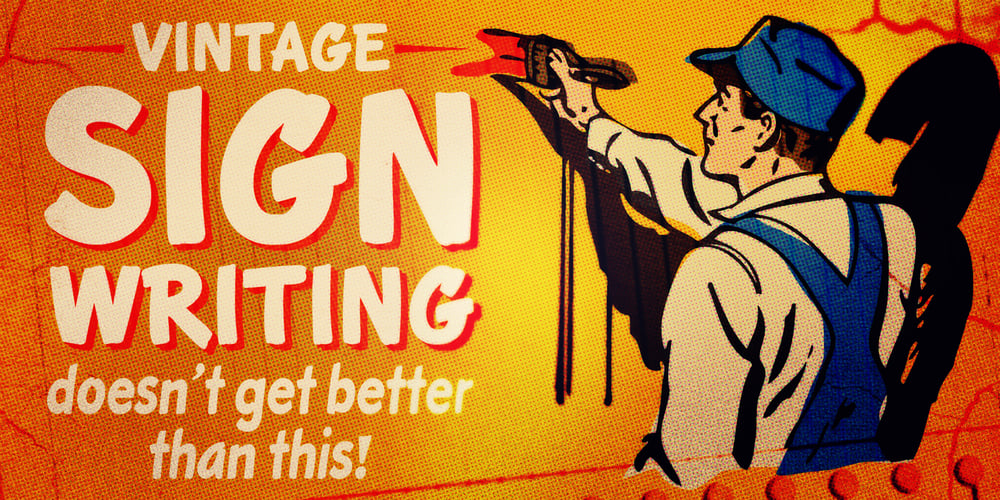
Roadbrush Font Family was designed by Coert De Decker and published by Kustomtype. Roadbrush contains 4 styles and family package options. Roadbrush was inspired by the mid-20th-century hand lettering of Albert Eckhardt, Jr., that I found in a 1950’s sign painting book. Roadbrush is a retro brush-style script that I re-designed and completely re-mastered. Roadbrush is a powerful font that can be used for logotype, packaging, posters, T-shirts, signage & design projects with a retro & vintage feel. Roadbrush comes with four styles that contain all upper and lower case characters, punctuation, numerals and mathematical operators, as well as all accented characters.